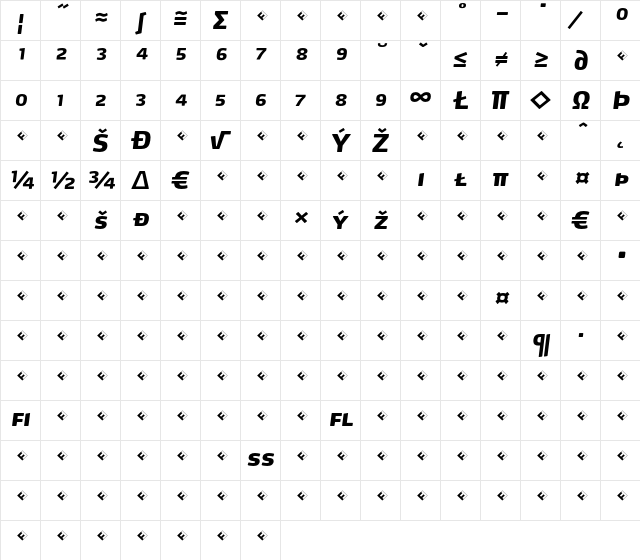
Max-BlackItalicSCExpert Regular
Design Context for Max-BlackItalicSCExpert Typeface
Max-BlackItalicSCExpert is a composed and adaptable typeface that performs quietly and consistently across a wide range of design contexts. The slanted form adds forward momentum and visual energy.
Pro Tip: Use Max-BlackItalicSCExpert for emphasis, pull quotes, and subheadings where its slanted energy can add rhythm to the layout.